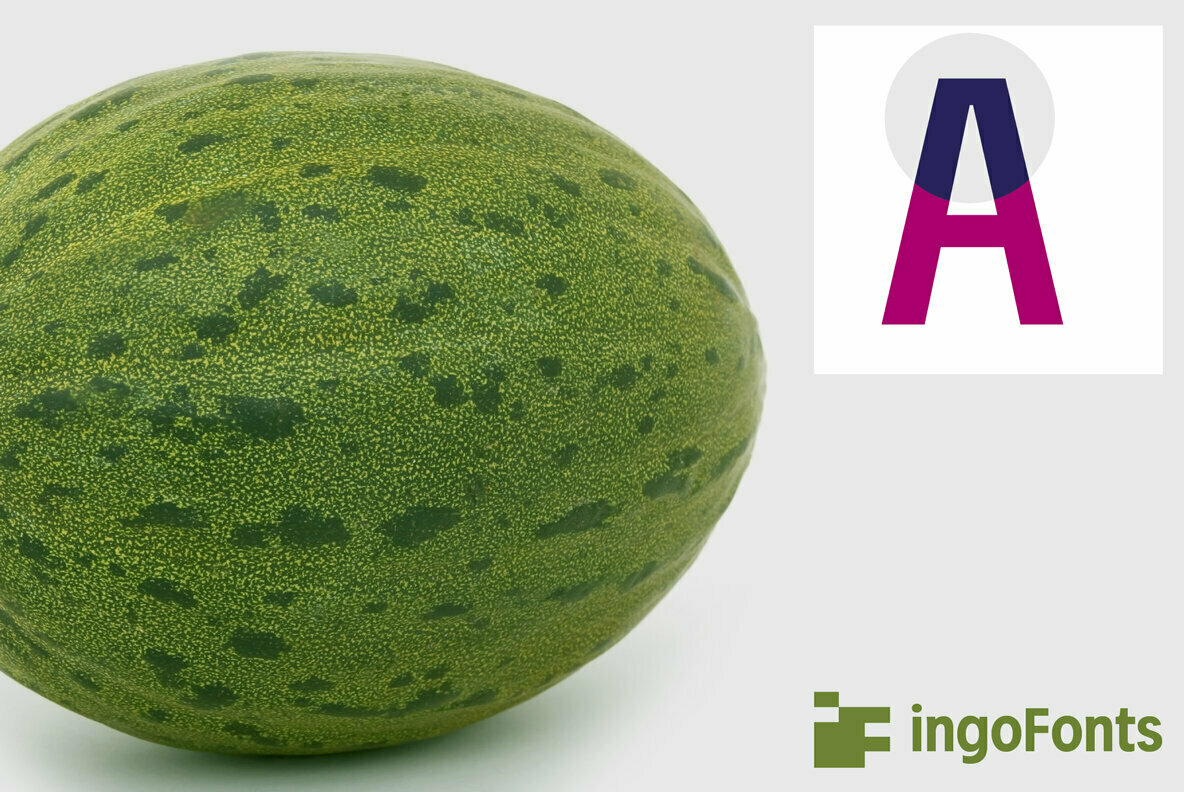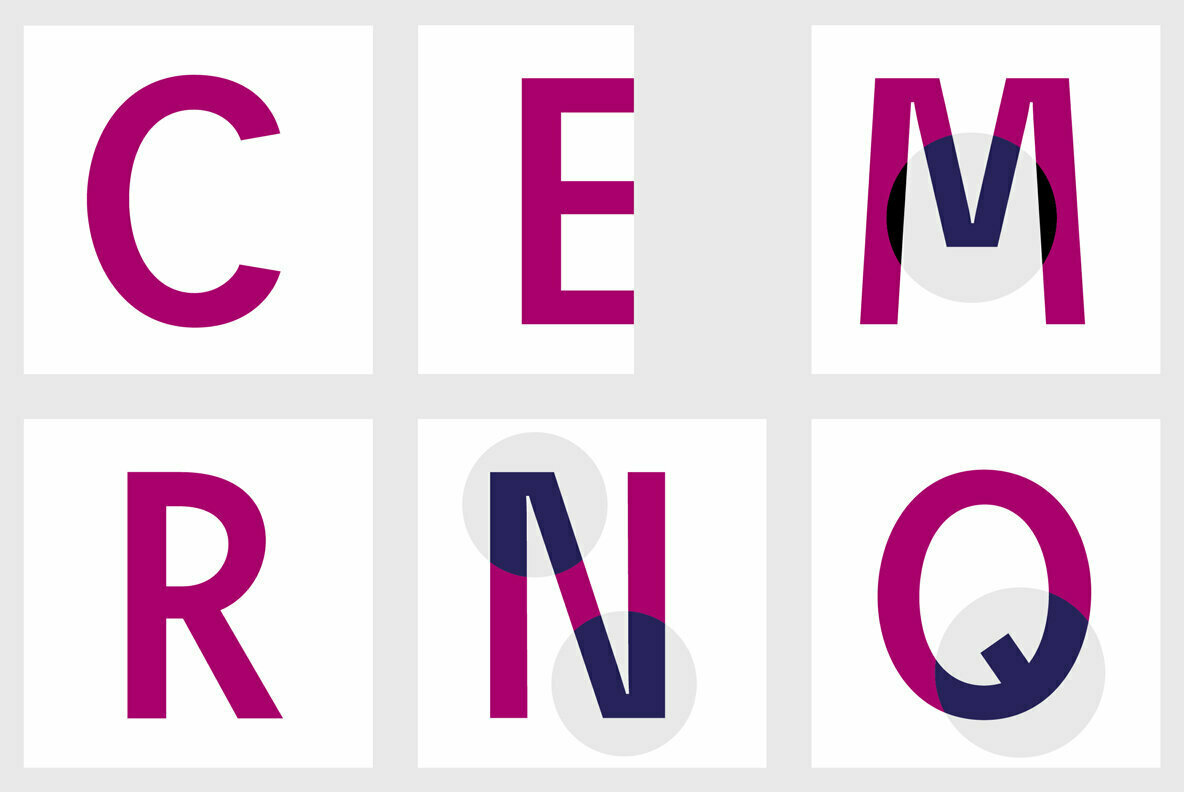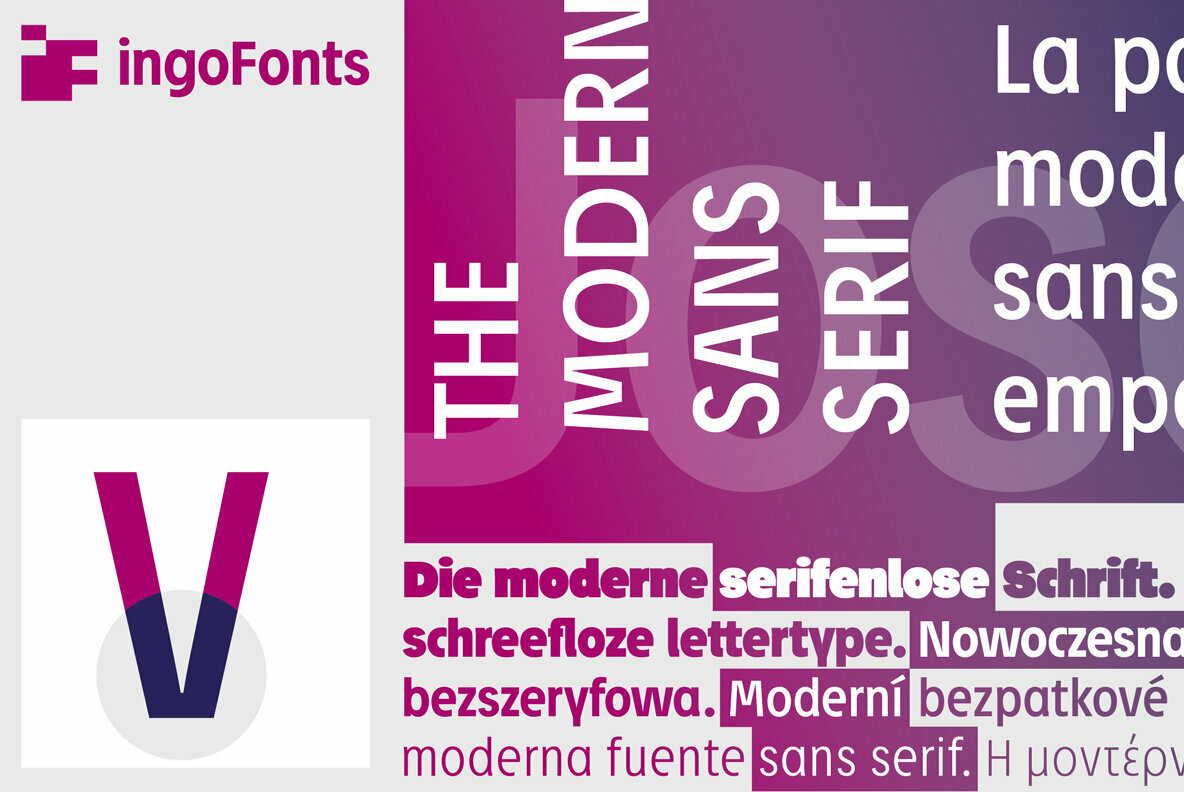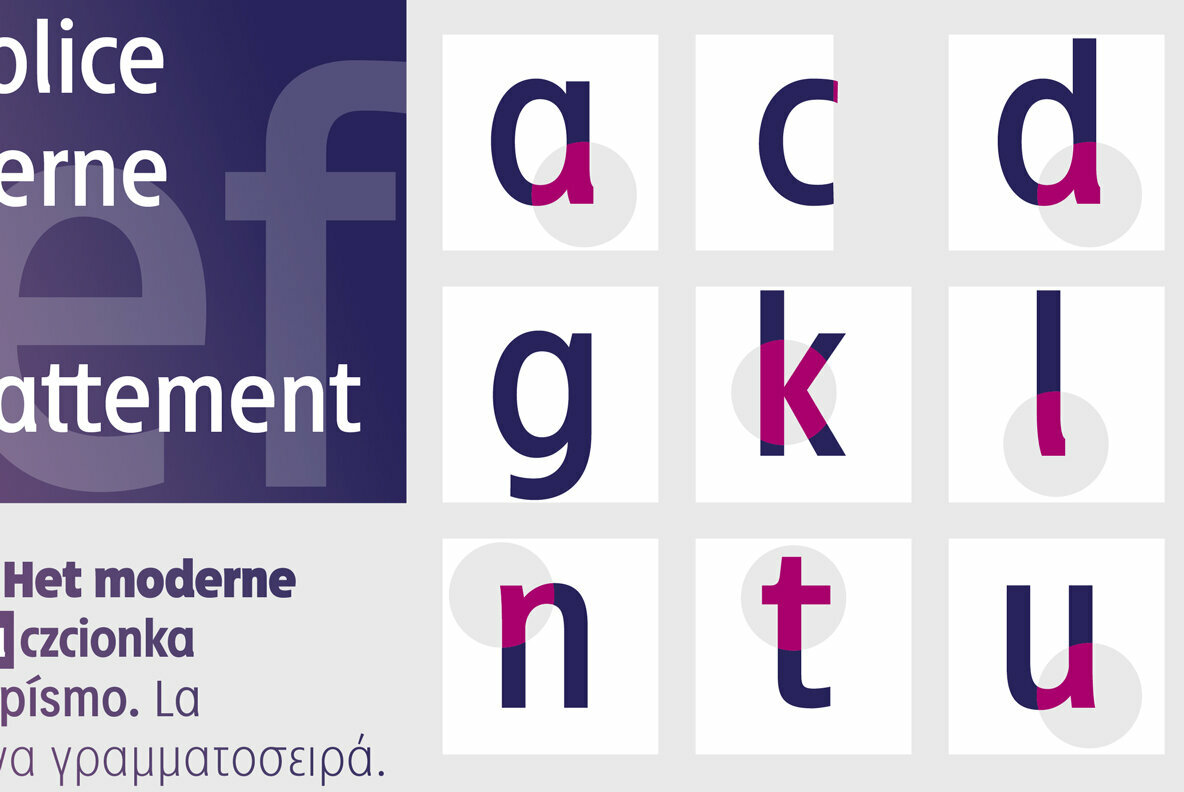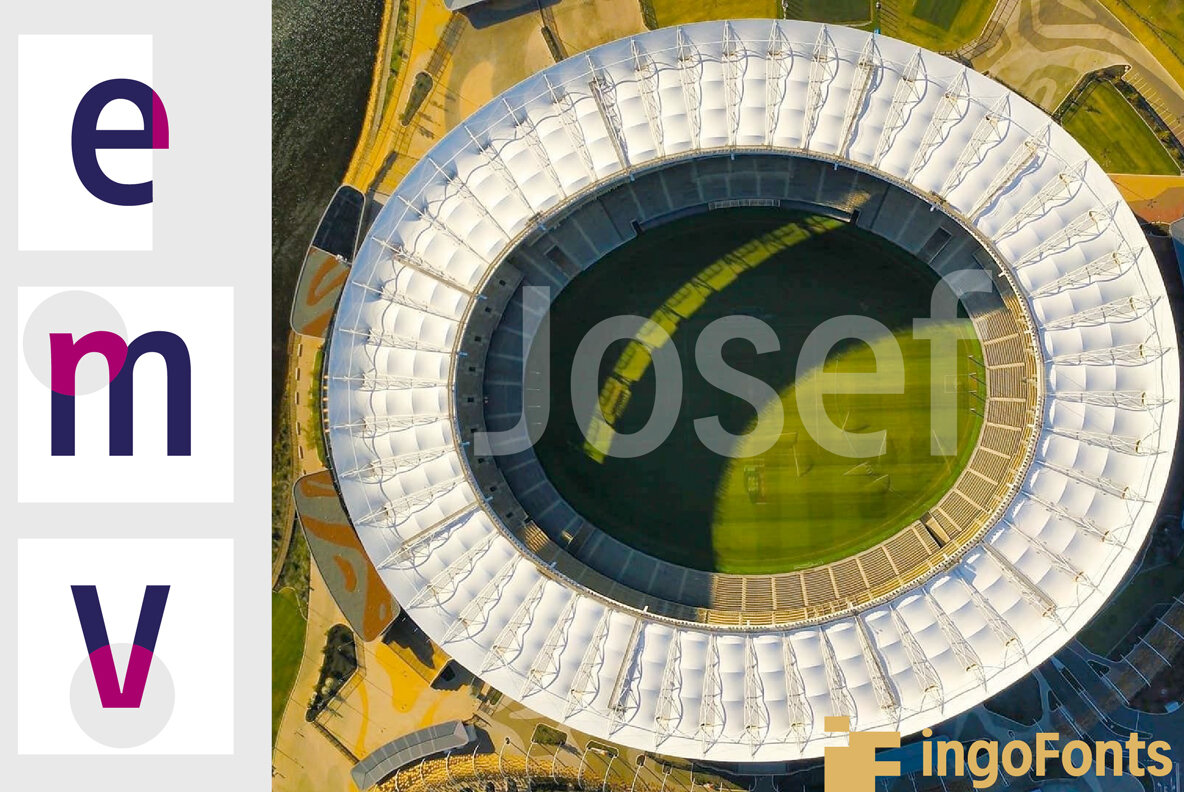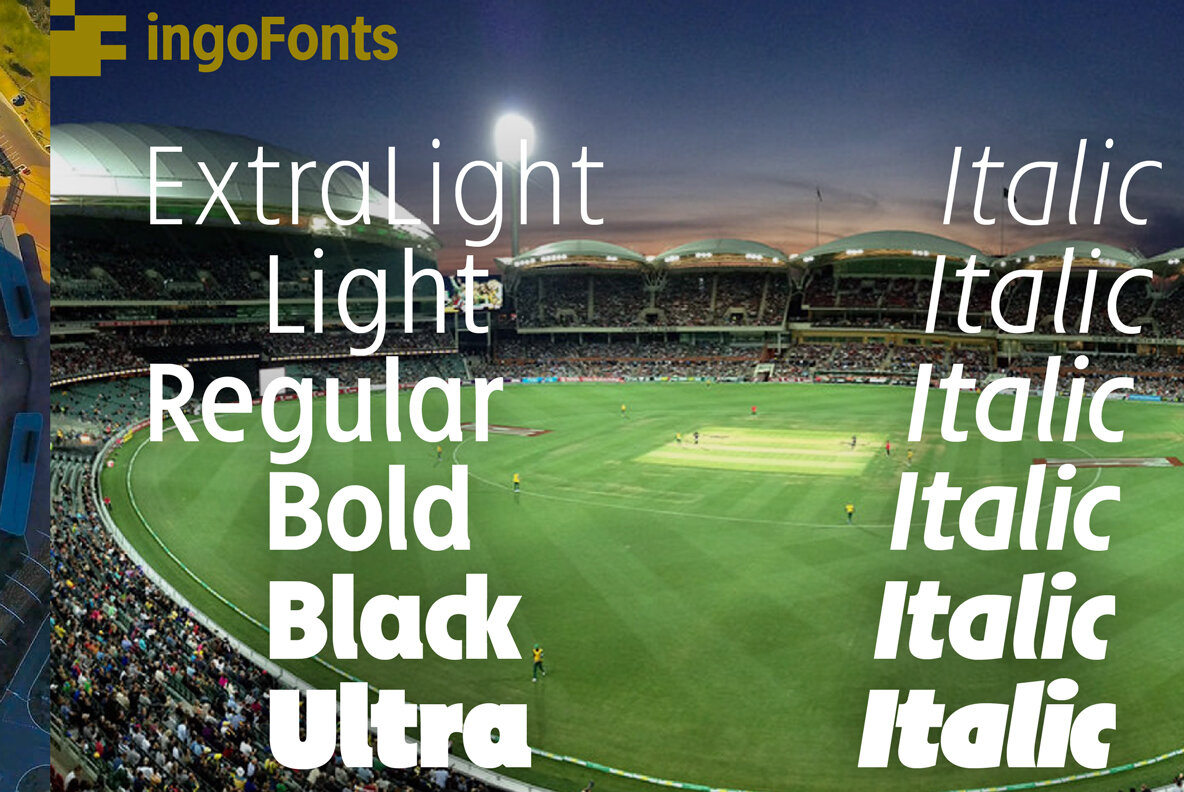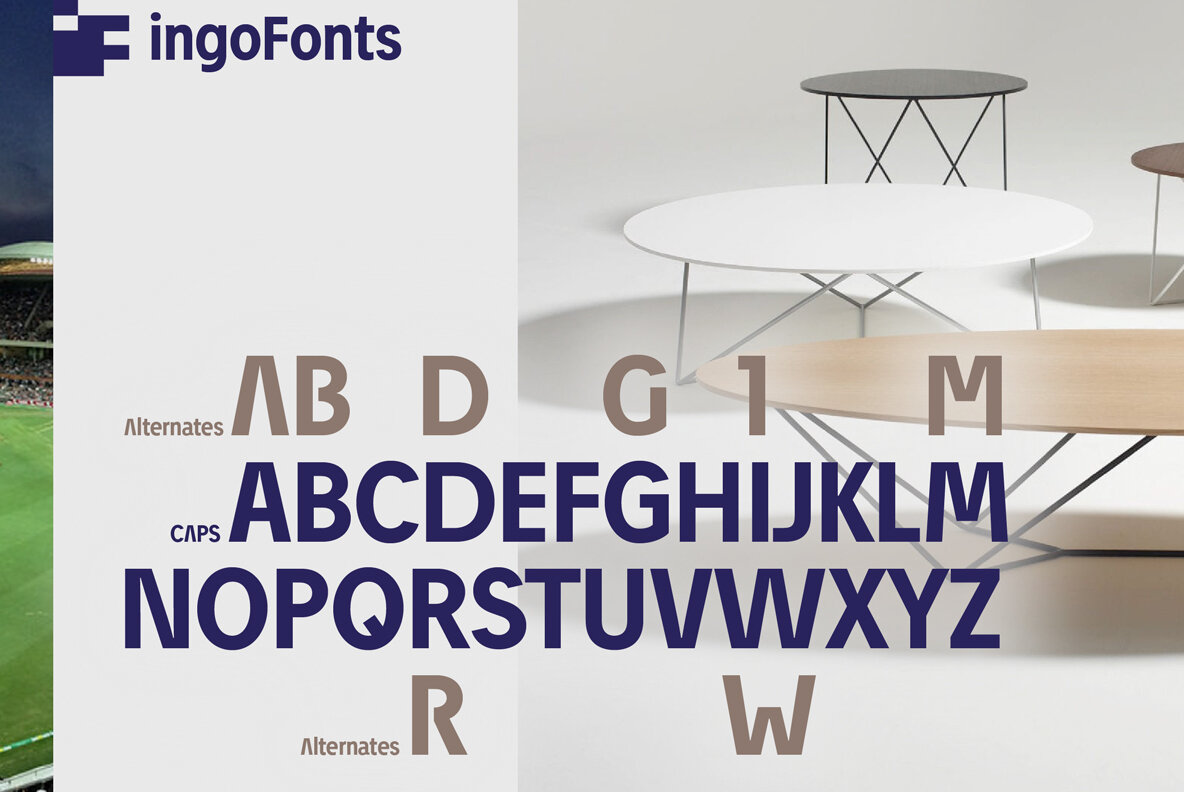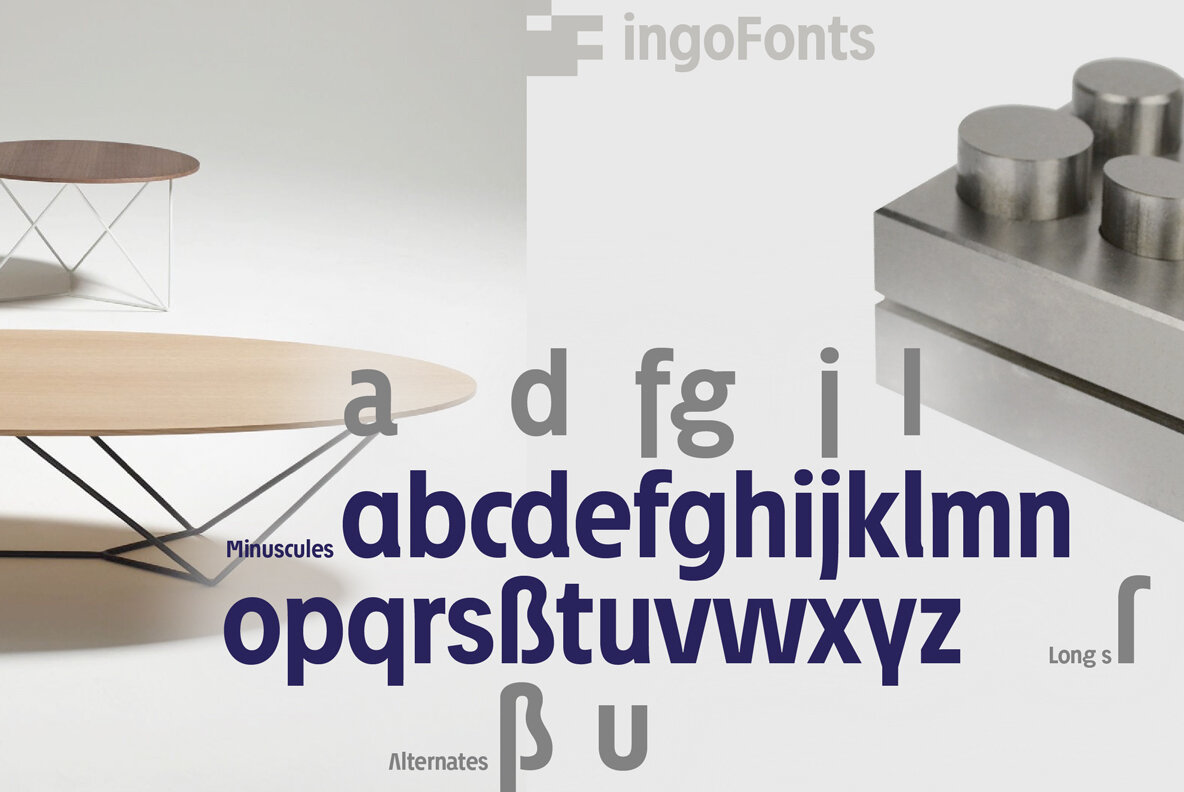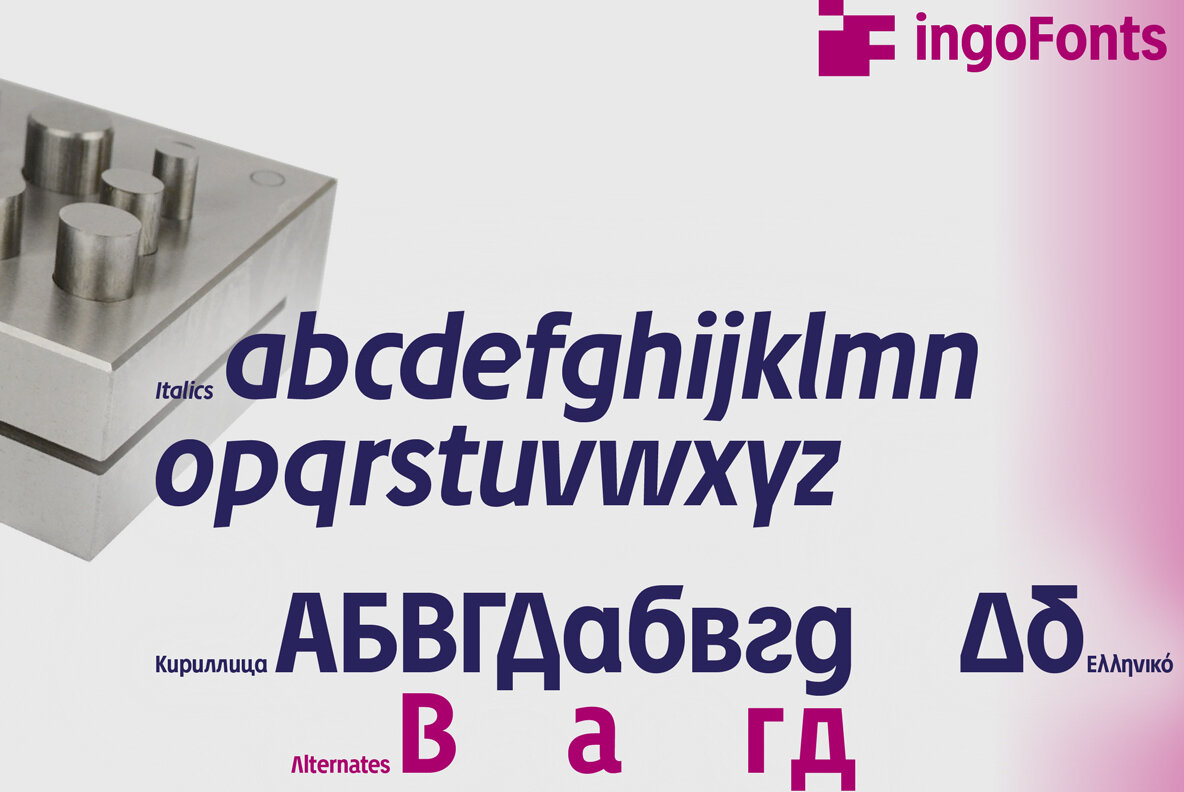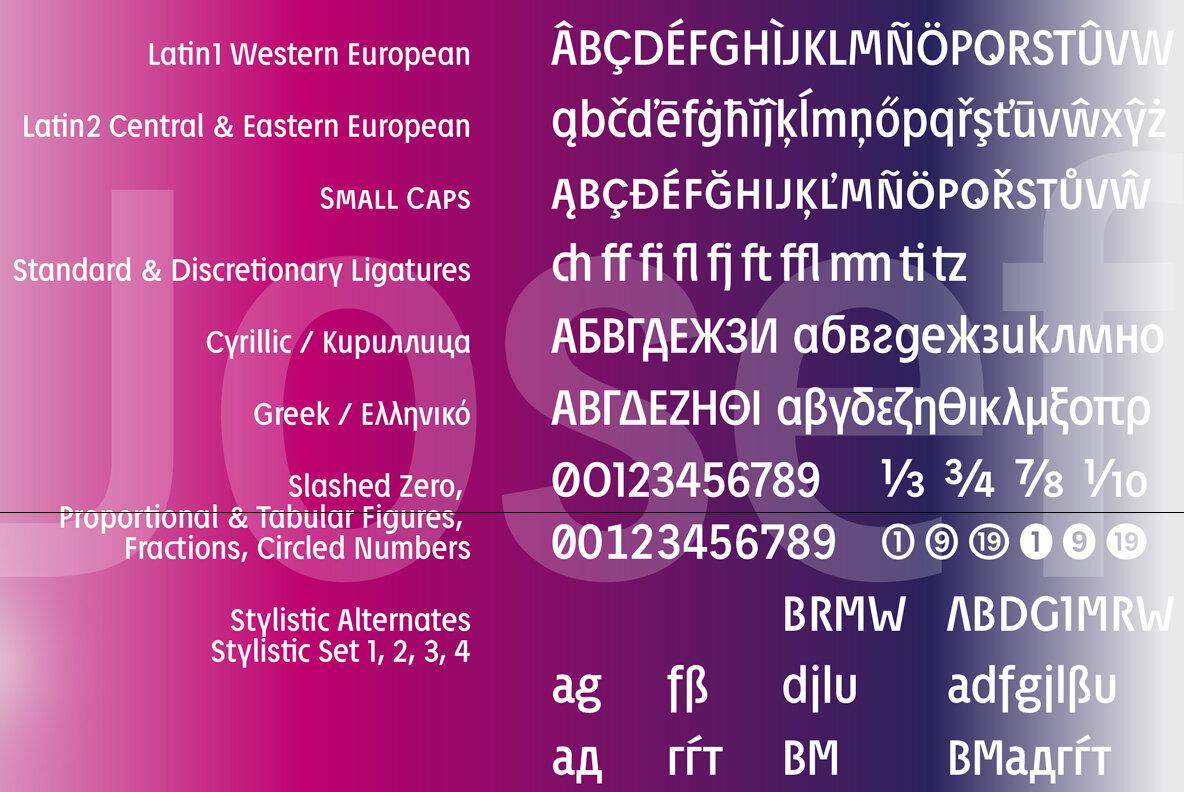
Josef Pro Font
A modern sans serif with open round forms
The ”round“ letters emphasize the condensed open oval; the light counter forms provide the rhythm of the typeface, causing the typeface to appear gentle and pleasing. The ”modern“ design of a and g being especially contributive here.
All of the letters are recognizably narrow, almost ”condensed,“ the forms being very functionally shaped. The construction of the ”triangular“ upper case letters A M N V W as well as v and w, especially catches the eye with the shafts joined together as beams are stacked upon each other. With this construction JOSEF displays a down-to-earth touch.
Contrary to the classical sans serifs, a few letters were given light echoes of serifs which promote fluency: a d l are displayed below the line in a reading direction and end in a compressed but also very short serif style; on m n p r the upstroke is gently displayed and on u the downstroke.
For all the typo-maniacs among you designers there are alternative forms for a number of letters in Josef: A B D G I M R W and a d f g j l ß u. Even an antiquated ”long“ s and an upper case ß is available.
Plus, Josef includes numerous ligatures which can save that little bit of space where required and which allow the typeface to appear more variable: ch, ck, ct, fi, fj, fl, ff, ffi, ffl, ft, mm, ti, tt, tz.